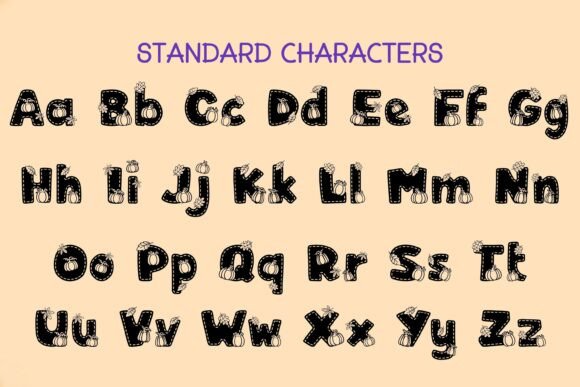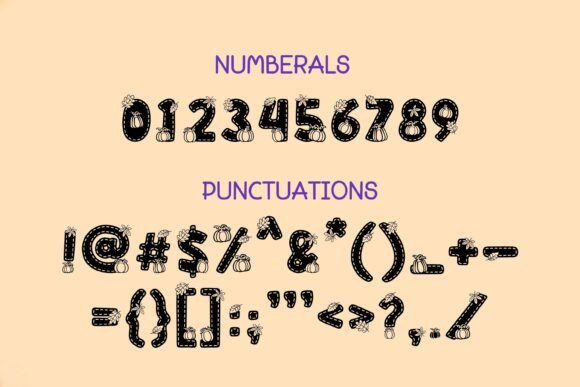
Introducing Happy Pumpkin Font: The Perfect Addition to Your Spooky Season Designs
As the spookiest time of the year approaches, designers and crafters are on the lookout for the perfect fonts to add a touch of magic to their Halloween-themed creations. If you’re searching for a font that embodies the playful and mysterious vibe of the season, look no further than Happy Pumpkin Font. This whimsical Halloween display font is specifically designed to bring a sense of fun and eeriness to your posters, invitations, party flyers, trick-or-treat signs, social media graphics, and more.
What is Happy Pumpkin Font?
Happy Pumpkin Font is a unique and eye-catching display font that features adorable pumpkins and fall leaves. The font’s design is carefully crafted to evoke the feeling of a crisp autumn day, with the warmth and coziness of the season perfectly balanced by a hint of spookiness. The result is a font that’s both playful and mysterious, making it the perfect addition to any Halloween-themed design.
Key Features of Happy Pumpkin Font
- Whimsical Design: Happy Pumpkin Font features a one-of-a-kind design that’s sure to stand out in any design. The font’s playful and quirky style is perfect for adding a touch of personality to your creations.
- Halloween-themed: The font’s Halloween theme makes it the perfect choice for spooky season designs. From trick-or-treat signs to party flyers, Happy Pumpkin Font is sure to add a touch of magic to your creations.
- Multipurpose: Happy Pumpkin Font is versatile and can be used for a wide range of design projects, including posters, invitations, social media graphics, and more.
Happy Pumpkin Font is a dream come true for designers and crafters who love to create spooky and fun designs for Halloween. Whether you’re creating invitations for a Halloween party, designing trick-or-treat signs, or crafting social media graphics, this font is sure to add a touch of personality to your creations.
Tips and Tricks for Using Happy Pumpkin Font
- Pair with Other Fonts: Happy Pumpkin Font pairs well with other fonts, such as sans-serif fonts or script fonts. Experiment with different font combinations to create a unique look.
- Use in Combination with Images: The font looks great when used in combination with images, such as pumpkins, fall leaves, or other Halloween-themed graphics.
- Experiment with Colors: Happy Pumpkin Font looks great in a variety of colors, from bright and bold to muted and pastel. Experiment with different colors to find the perfect look for your design.
Happy Pumpkin Font is a unique and eye-catching display font that’s perfect for adding a touch of magic to your Halloween-themed designs. With its whimsical design, Halloween theme, and multipurpose use, this font is sure to become a favorite among designers and crafters. Whether you’re creating posters, invitations, party flyers, or social media graphics, Happy Pumpkin Font is the perfect choice for adding a playful yet mysterious vibe to your creations.